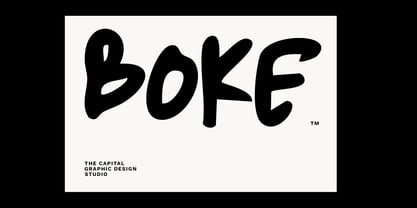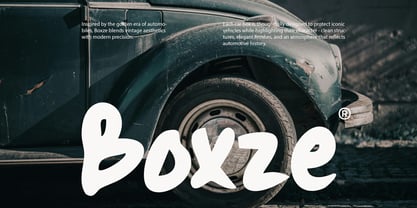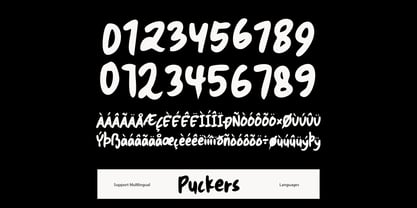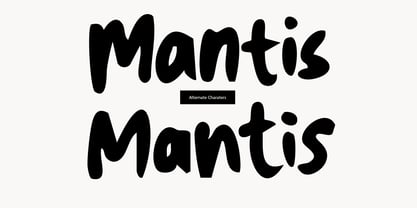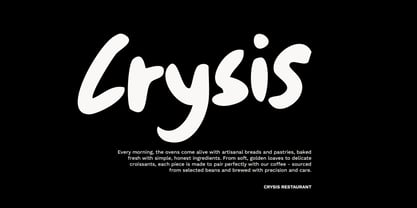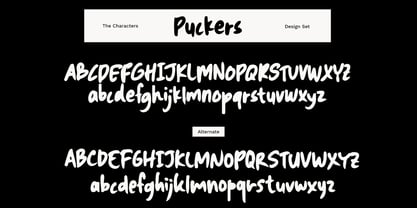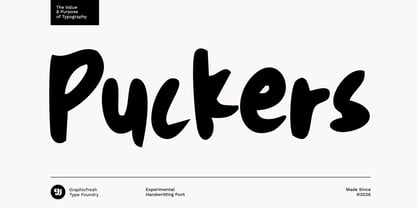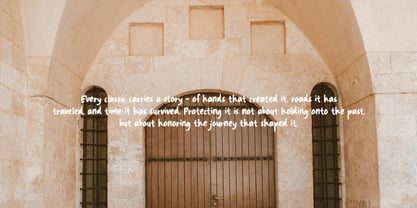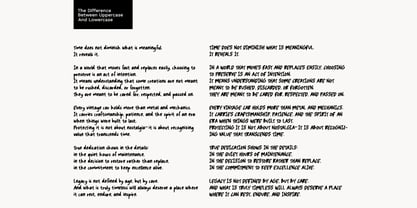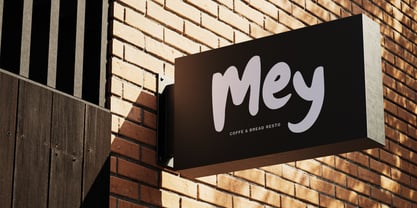
Puckers
Puckers is an experimental handwriting font designed to bring raw expression, playful energy, and modern character into your creative projects. Inspired by spontaneous strokes and imperfect letterforms, Puckers feels bold, artistic, and alive, perfect for designers who want typography that stands out and feels personal. Each character in Puckers comes with multiple alternates, allowing you to create dynamic, non-repetitive text that looks truly hand-drawn. By switching alternates, your lettering feels more natural, organic, and expressive. Ideal for branding, posters, album covers, packaging, social media graphics, and creative headlines.